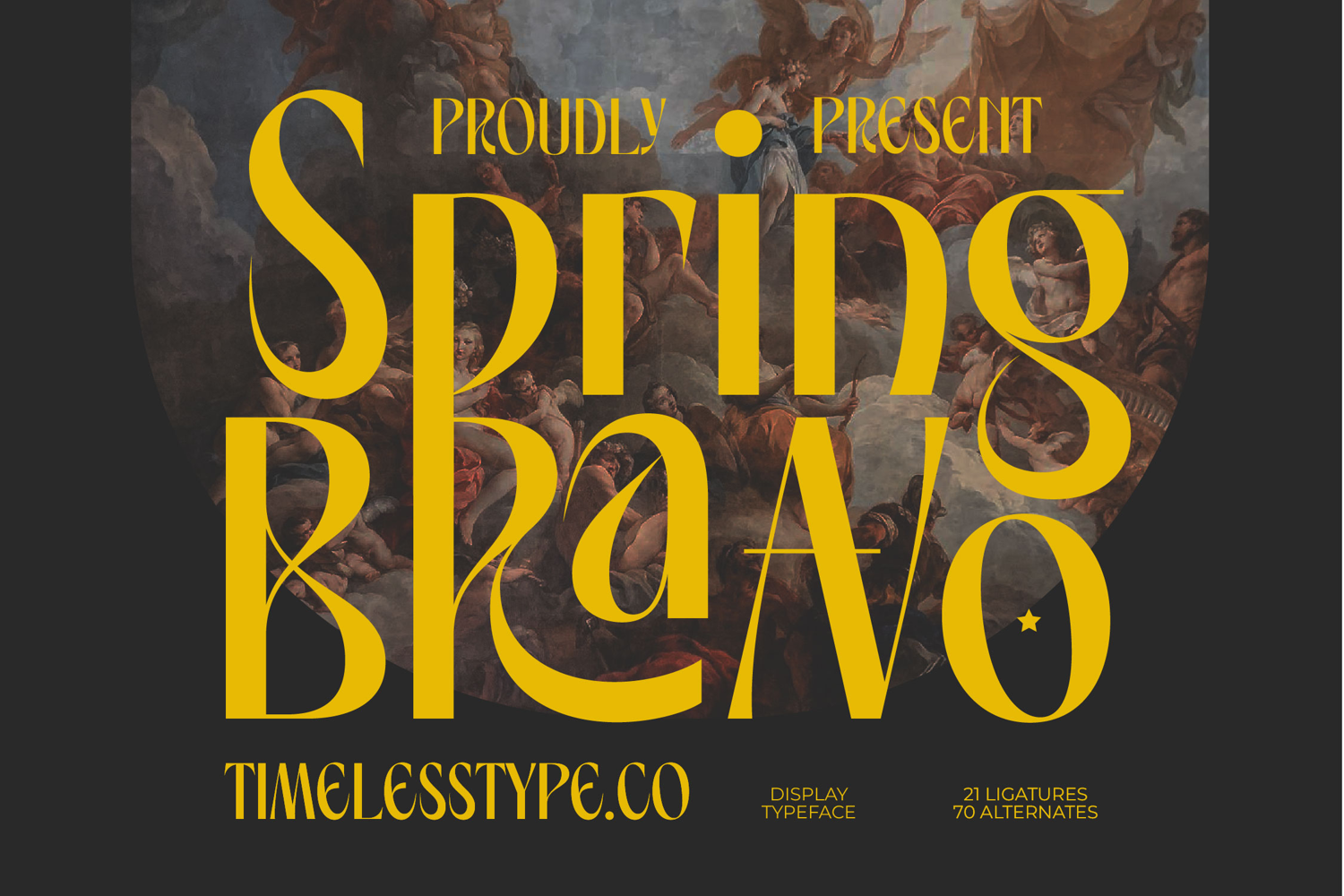
Spring Braavo - Modern Display Typeface Serif Display
Spring Braavo Italic
Spring Braavo
Achieve immediate visual impact with Font Spring Braavo - Modern Display Typeface Serif Display. This dramatic display serif commands attention through its audacious, elongated curves and high-contrast architecture, blending classical baroque elegance with a powerful contemporary edge. The design features strikingly large terminals and flowing swashes, delivering an unmistakable feeling of bespoke sophistication. This typeface is engineered for headlines that demand to be noticed and remembered in the most luxurious contexts.